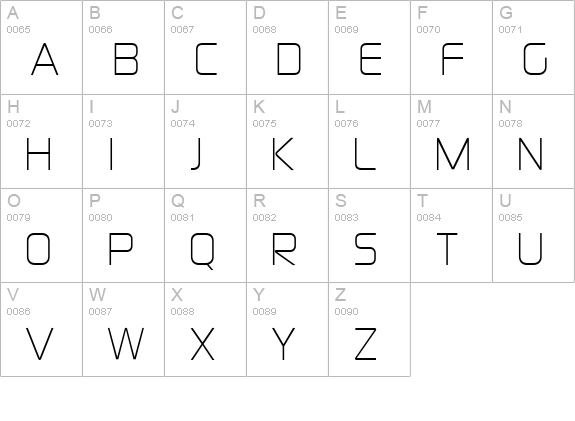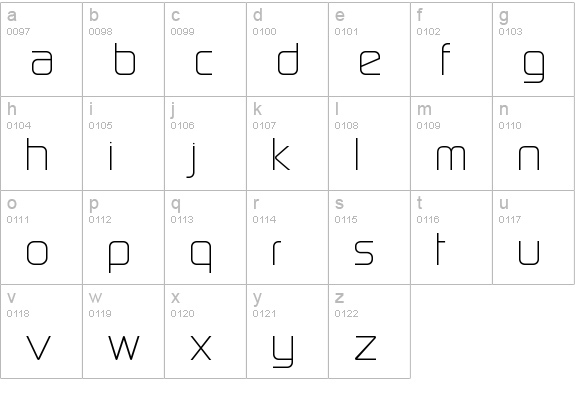
Sol Regular is the standard, neutral variant in the Sol typeface family \xE2\x80\x94 well suited to general body text, paragraphs, and standard typographic work.
Sol Regular is a stunningly versatile font that exudes elegance and sophistication. Its clean lines and perfectly balanced letterforms make it a timeless choice for any design project. Whether you're creating a logo, designing a website, or crafting a beautiful invitation, Sol Regular will effortlessly elevate your work to new heights. What sets Sol Regular apart is not just its aesthetic appeal, but also its availability as a free font. Yes, you read that right – Sol Regular is freely available to download at FontsMarket.com. This means that you can enhance your designs with this exquisite font without having to worry about any additional costs. With Sol Regular, you have the freedom to explore your creativity and unleash your design potential. Its wide range of weights and styles allows for endless possibilities, ensuring that you will always find the perfect fit for your project. Whether you prefer a bold and impactful headline or a delicate and refined body text, Sol Regular has got you covered. The attention to detail in Sol Regular is truly remarkable. Each character has been meticulously crafted to ensure optimum legibility and readability, even at small sizes. This attention to detail extends to the kerning and spacing, resulting in a harmonious and visually pleasing typography. Download Sol Regular today from FontsMarket.com and experience the joy of using a high-quality font that is both visually stunning and freely available. Elevate your design projects to the next level with Sol Regular and let your creativity shine.